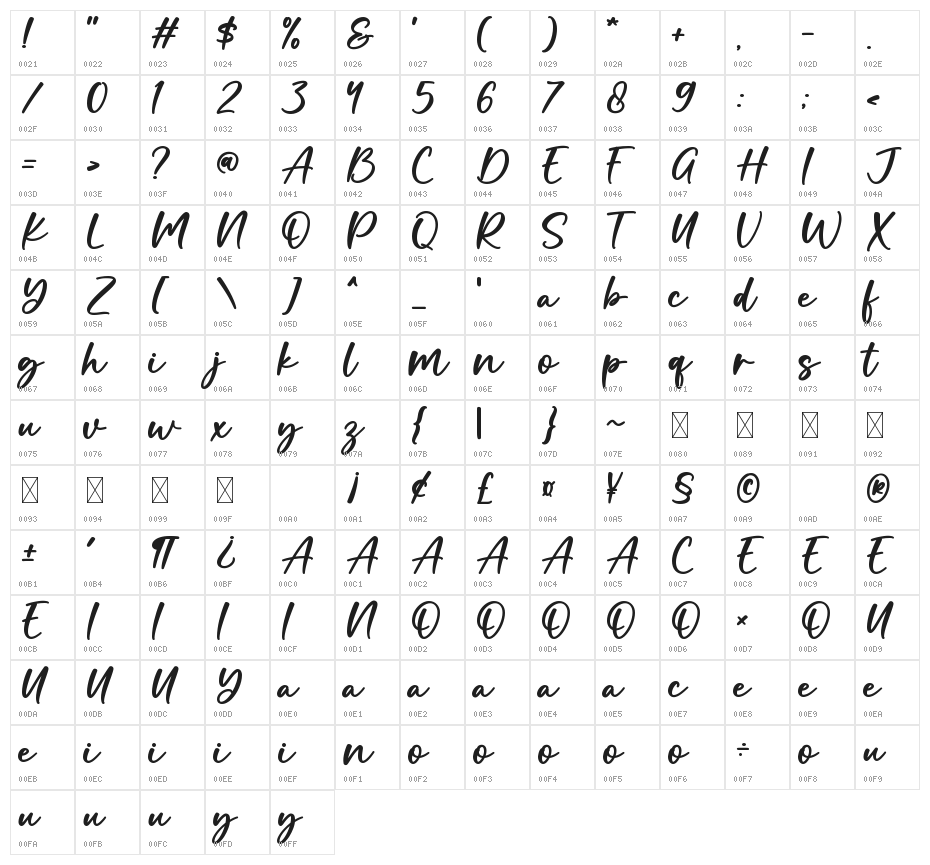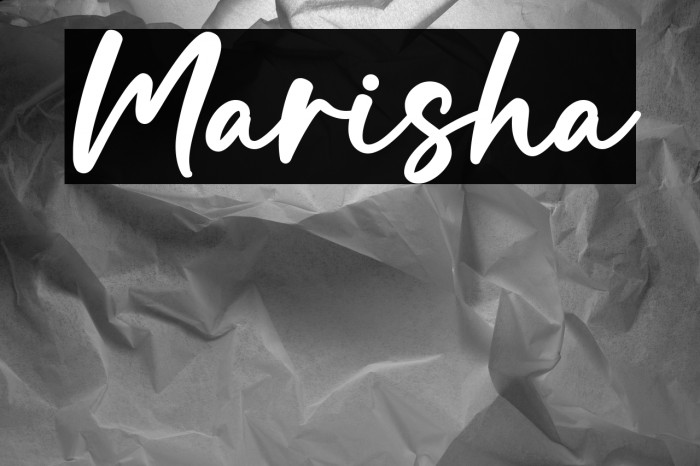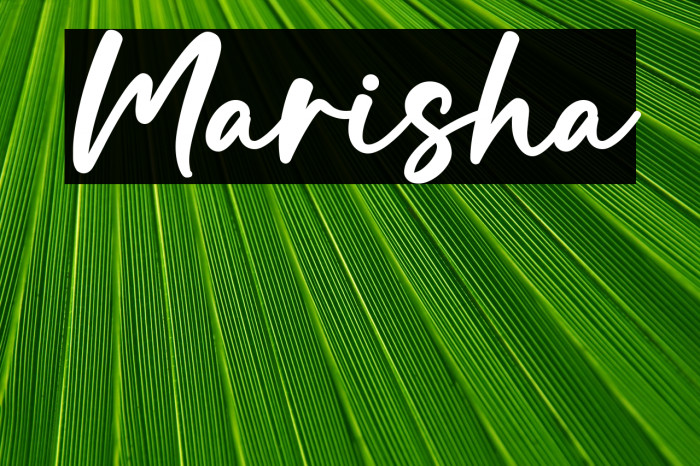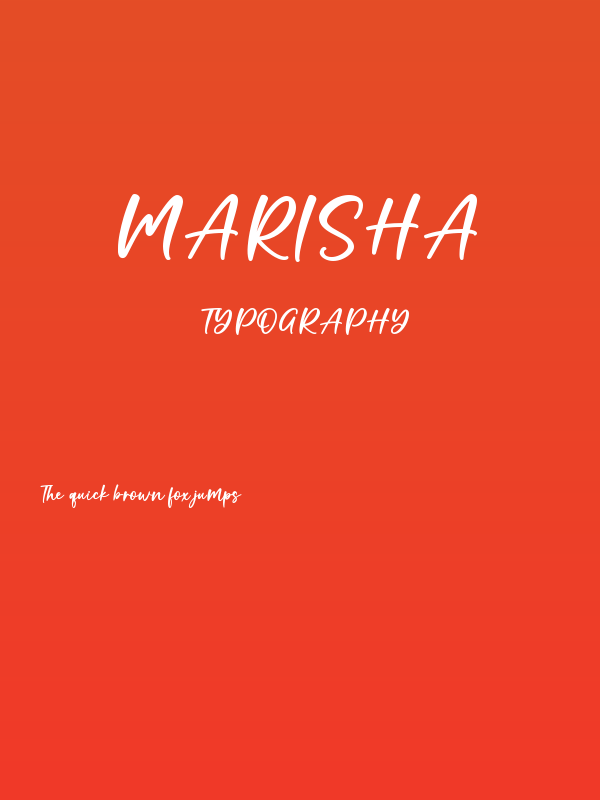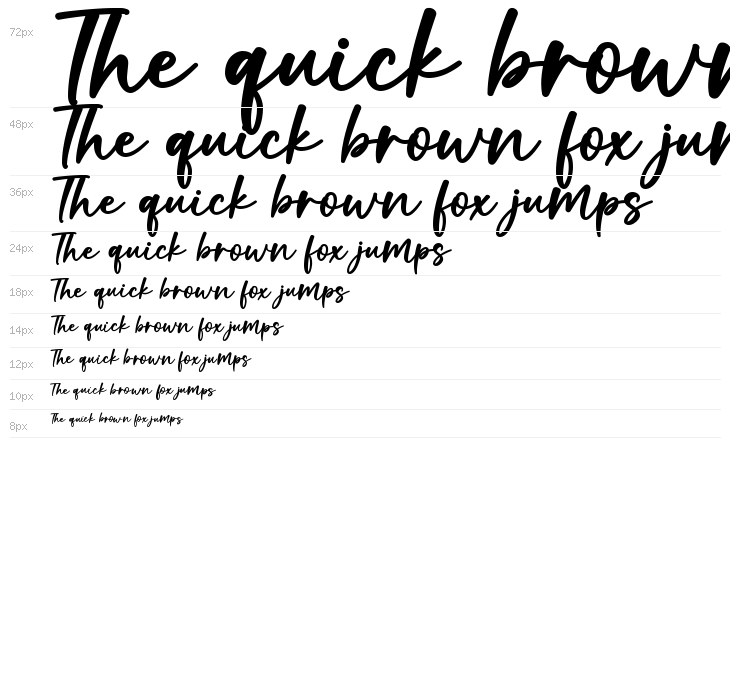
Marisha Font
Marisha Description
This font features a lively and flowing script style, characterized by its smooth, cursive strokes that mimic natural handwriting. The letters are connected, creating a seamless and elegant appearance. The uppercase letters are slightly more formal, while the lowercase letters maintain a casual, friendly vibe. The numerals and special characters are consistent with the overall style, ensuring a cohesive look across all text. This font's playful yet sophisticated design makes it versatile for various creative projects.
| Use Case | Logos, Headlines, Decorative text |
| Proposed Projects | Ideal for wedding invitations, greeting cards, branding, and social media graphics. |